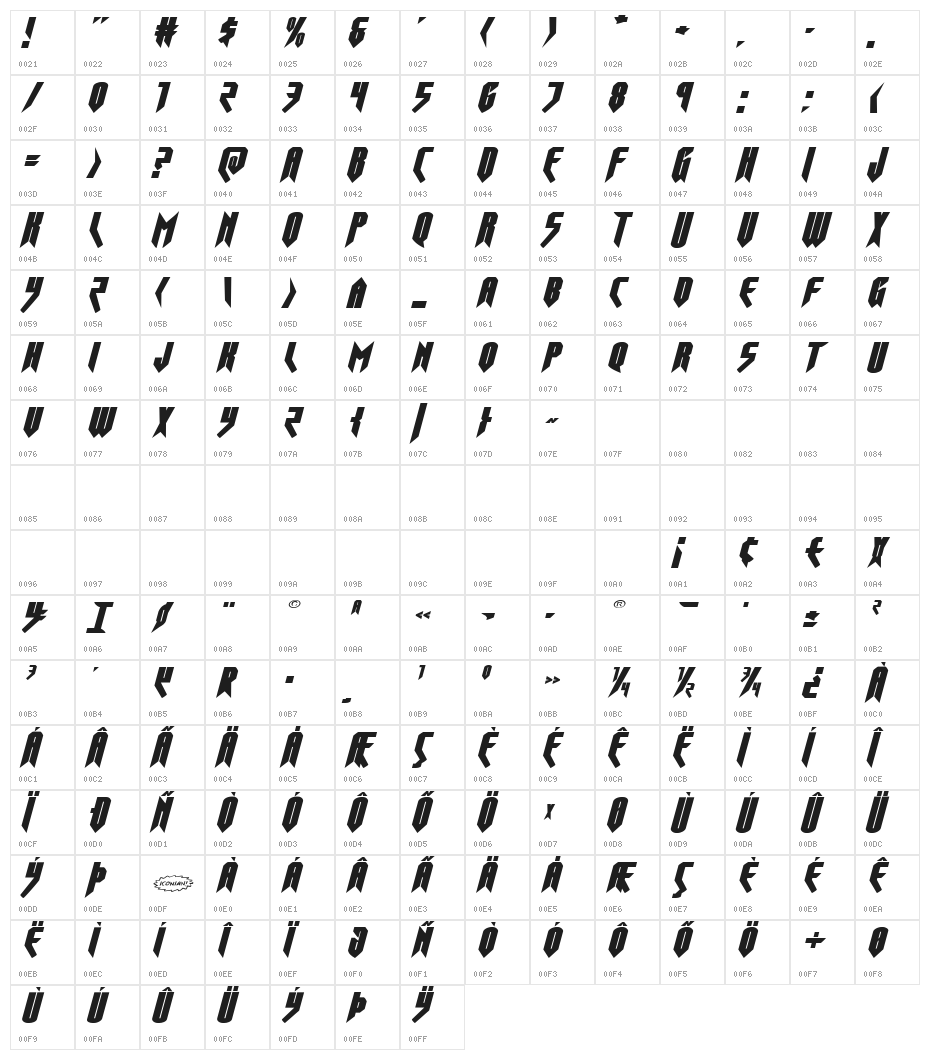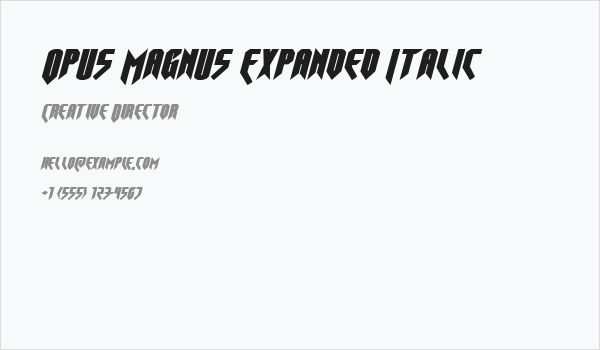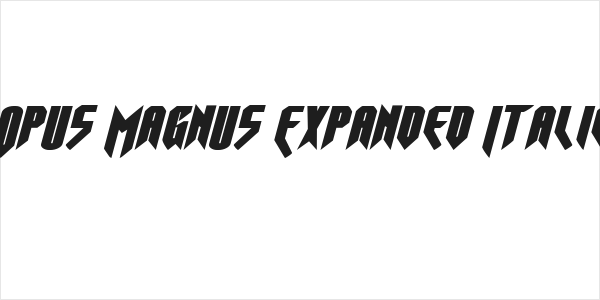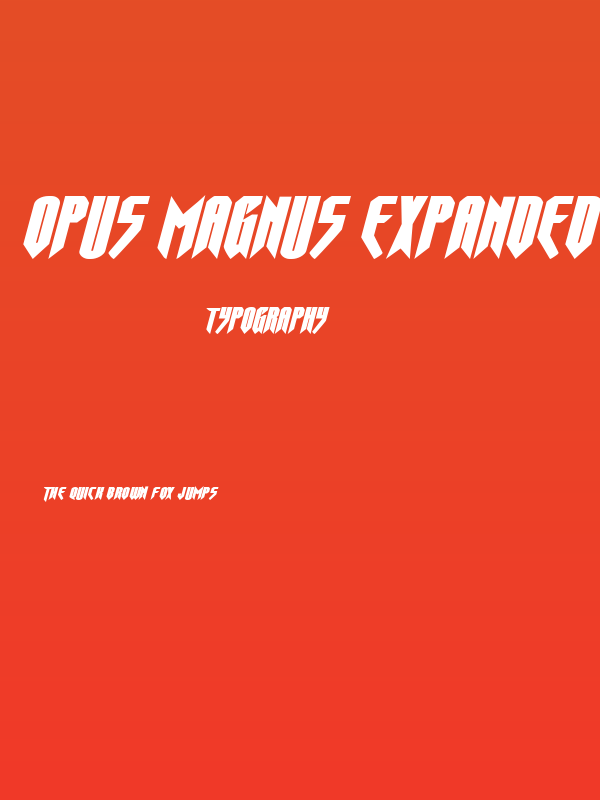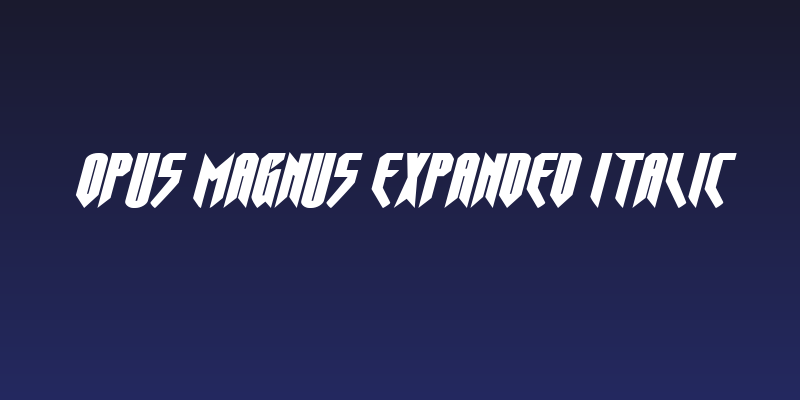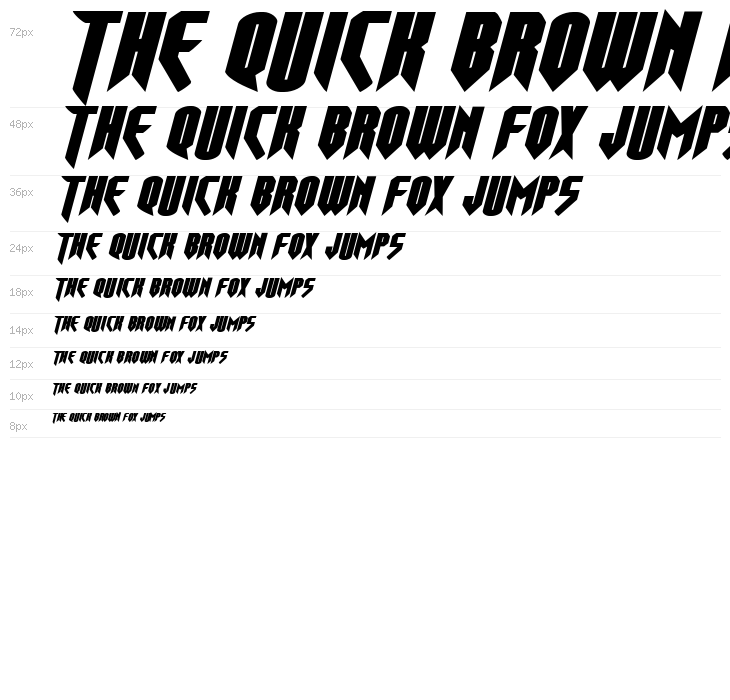
Opus Magnus Expanded Italic Font
Opus Magnus Expanded Italic Description
This font features a bold and dynamic design with sharp, angular lines and a distinct italic slant. The characters are heavily stylized, giving them a futuristic and aggressive appearance. The uppercase and lowercase letters maintain a consistent style, with exaggerated serifs and pointed edges that create a sense of movement and energy. The numbers and special characters follow the same aesthetic, ensuring uniformity across all glyphs. This font's expanded width and high contrast between thick and thin strokes make it highly visible and impactful.
Overall StyleFuturistic
Proposed ProjectsIdeal for use in video game titles, sci-fi movie posters, sports team logos, and edgy branding projects.